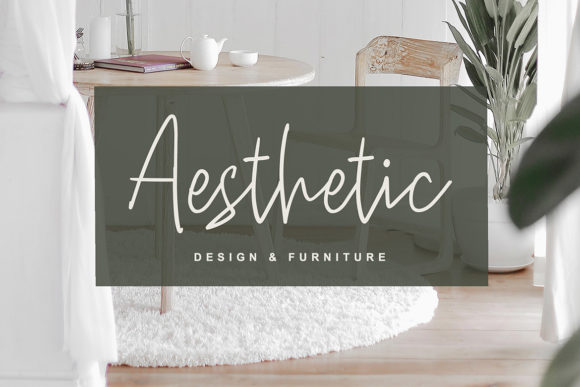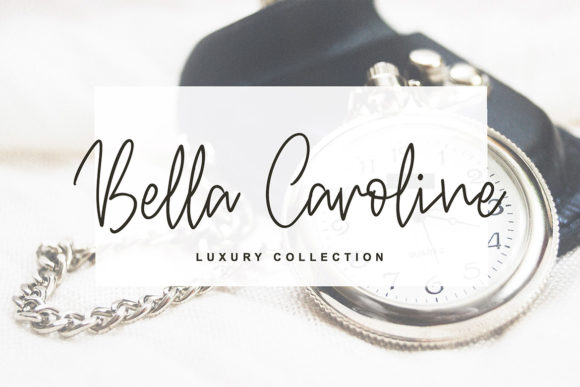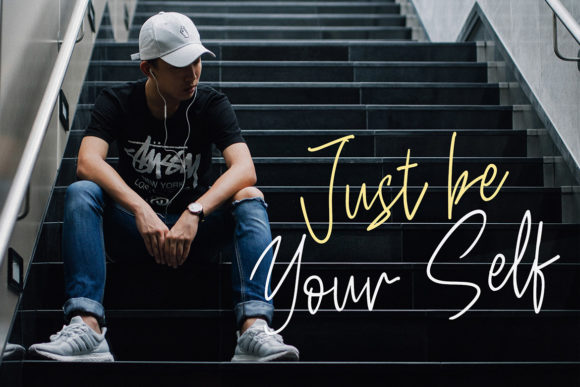
Introduction to Richard Keild Font
As a designer, there’s nothing quite like the thrill of stumbling upon the perfect font for a creative project. You’ve spent hours pouring over design resources, searching for the perfect combination of style and sophistication, and finally, you come across it – the elusive font that brings your vision to life. For me, that moment came when I discovered the enchanting Richard Keild Font.
With its light and romantic touch, this elegant handwritten font has captured the hearts of designers everywhere. Whether you’re working on a high-quality design project or simply looking for a unique design element, the Richard Keild Font is sure to bring a touch of personality to your work. And the best part? It’s available for free download, making it an invaluable resource for any designer.
So, let’s take a closer look at what makes the Richard Keild Font so special and how you can use it to elevate your next creative project.
Key Features of Richard Keild Font
- Unique, hand-crafted design with a personal touch, setting it apart from other fonts
- Perfect for use in digital design, print materials, and other creative projects
Honest Review: Richard Keild Font
As a designer, I’m always on the lookout for high-quality design resources that can elevate my creative projects. Recently, I stumbled upon the Richard Keild Font, and I must say, it’s been a game-changer for me.
- ✨ High-quality font with a unique, modern design aesthetic
- ✨ Highly versatile, suitable for a wide range of creative projects
- ✨ Easy to use, with a transparent background that makes it seamless to integrate into any design
However, I do have a few limitations to mention:
- ⚠️ Limited character set, which may be a concern for designers working on complex projects
- ⚠️ Not ideal for use in situations where a large font size is required
Overall, I’m thoroughly impressed with the Richard Keild Font. Its high quality and versatility make it an excellent addition to any designer’s toolkit. While it may have a few limitations, I believe it’s well worth the download, especially considering its free price point.
Tips for Getting the Most Out of Richard Keild Font
For optimal results, experiment with different font sizes, colors, and combinations. Use the font’s transparent background feature to create visually striking graphics and designs. With Richard Keild Font, the possibilities are endless.
Common Use Cases for Richard Keild Font
Richard Keild Font is ideal for various creative projects, including graphic design, digital art, and even web design. Its high-quality design and transparent background feature make it a valuable resource for designers and artists.
Alternatives to Richard Keild Font
Alegreya Sans is a high-quality, modern sans-serif font suitable for creative projects requiring a clean and professional look. It is available for free download and offers a transparent background, making it an ideal design resource for designers. Alegreya Sans is a great alternative to Richard Keild Font for projects that require a more contemporary feel.
Merriweather is a classic serif font that exudes elegance and sophistication. It is a popular design resource among designers and is available for free download. Merriweather is a great choice for projects that require a timeless and traditional look, making it a suitable alternative to Richard Keild Font for creative projects that demand a sense of history and refinement.